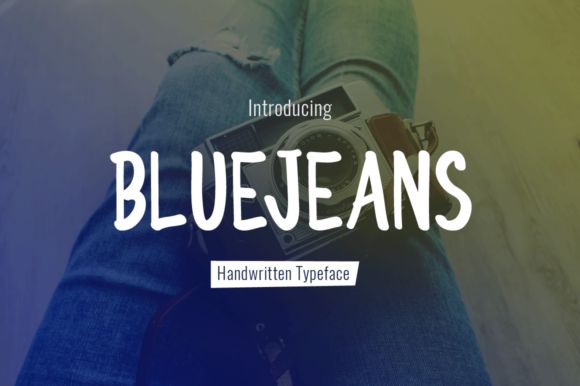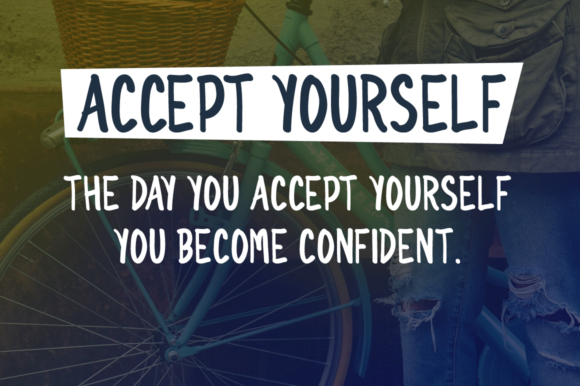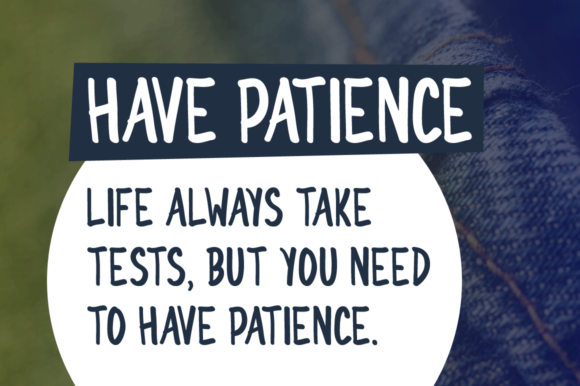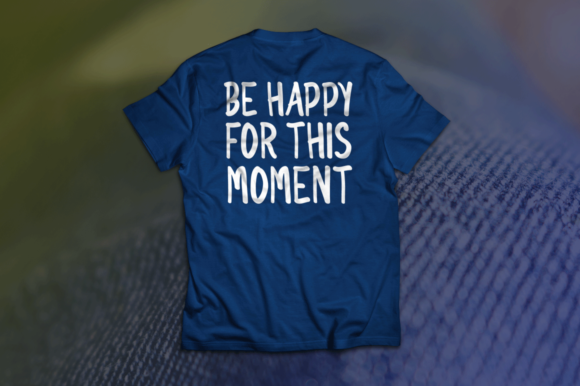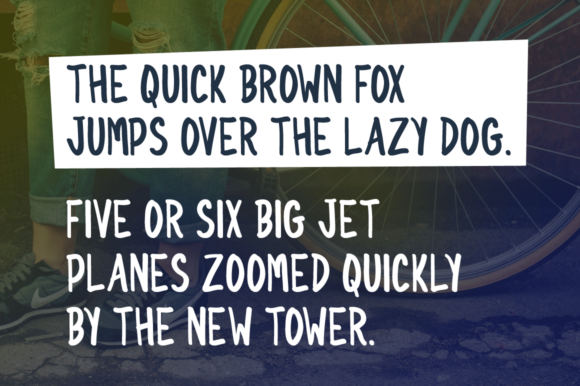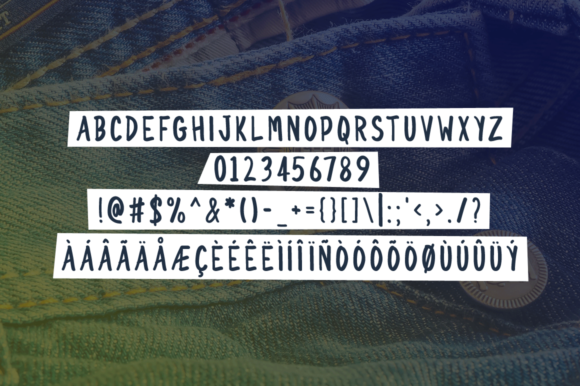
BlueJeans Font
About BlueJeans Font
BlueJeans is a cool and casual font, perfect for giving your designs a laid back but well styled feel. This handwritten font is suitable for branding, and looks great in body text as well.